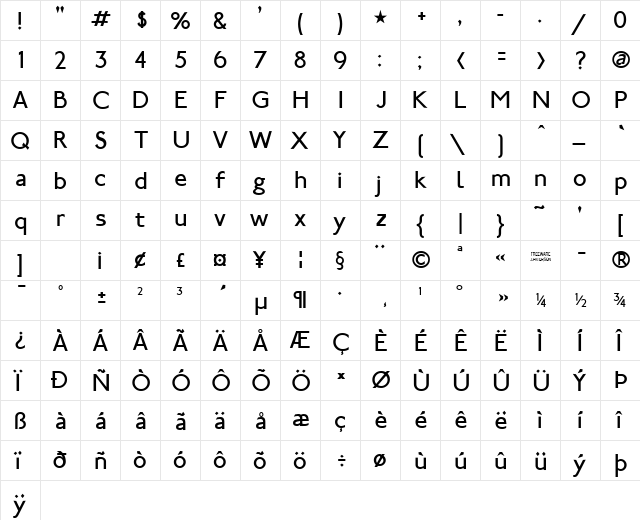
London Underground Normal
Design Context for London Underground Typeface
London Underground softens its letterforms with rounded terminals, giving it an approachable, friendly quality that works well in consumer-facing and digital contexts.